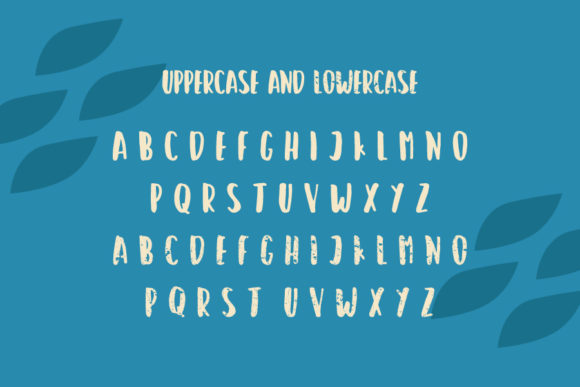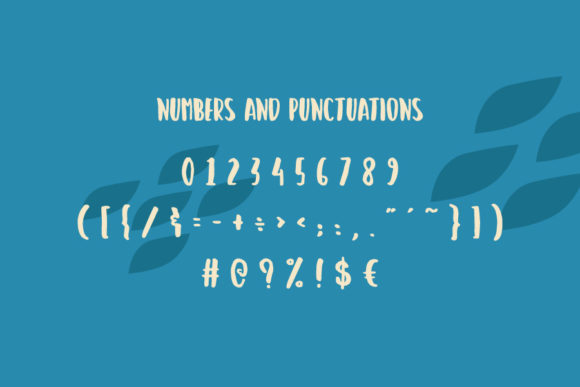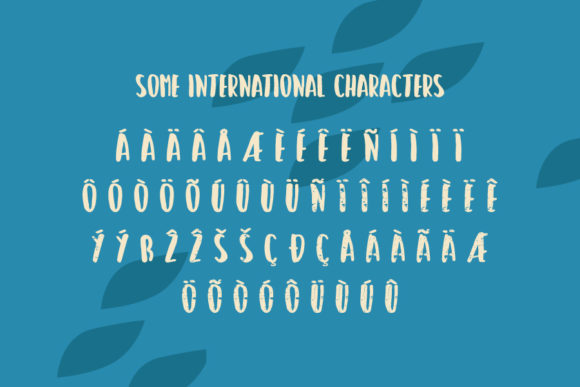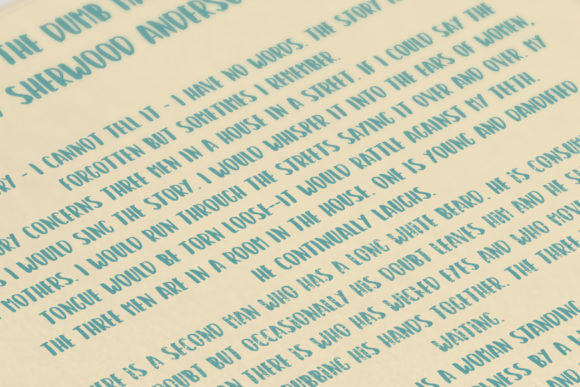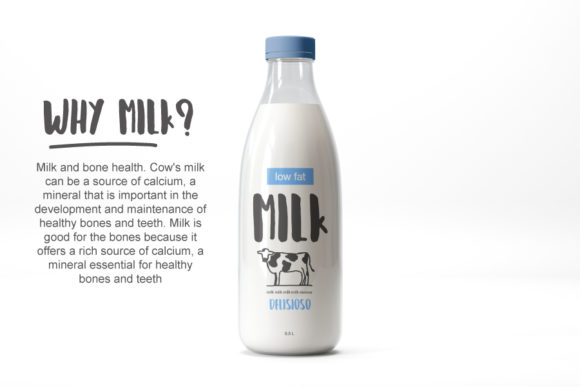
Introduction to Carita Font
The Carita is an all caps typeface.
It has an fun feel and will add a striking touch to your designs .
Key Features of Carita Font
Why Choose Carita Font?
Carita Font offers exceptional quality and versatility, making it a valuable addition to your design toolkit. Whether you’re creating for personal projects or commercial use, Carita Font delivers professional results.